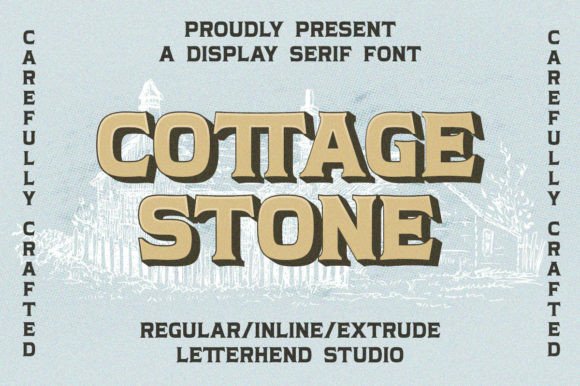
Cottage Stone Font: Elevate Your Design with a Timeless Classic
In the world of typography, few fonts manage to capture the essence of classic elegance and vintage charm as effectively as Cottage Stone. This bold all-caps serif font is a masterful blend of traditional and modern elements, making it an ideal choice for designers looking to add a touch of sophistication to their work. Whether you’re creating invitations, labels, logos, magazines, books, greeting cards, packaging, or advertising materials, Cottage Stone is the perfect companion to help your designs stand out.
Key Features of Cottage Stone Font
- Bold and Assertive: Cottage Stone’s bold nature ensures that your text grabs attention without compromising on elegance.
- All-Caps Design: The all-caps design of Cottage Stone lends a sense of grandeur and formality, making it suitable for a variety of high-end applications.
- Serif Details: The serif details add a classic touch, evoking a sense of tradition and reliability.
- Vintage Aesthetic: The font’s vintage aesthetic makes it perfect for projects that require a nostalgic feel, such as wedding invitations, classic logos, and traditional packaging.
- Versatility: Cottage Stone’s versatility means it can be used across a wide range of design projects, from fashion and beauty branding to book titles and advertising headlines.
10 Creative Ways to Use Cottage Stone Font
- Wedding Invitations: The elegant and bold nature of Cottage Stone makes it a perfect fit for wedding invitations, setting the tone for a sophisticated and memorable event.
- Logos and Branding: For businesses aiming to project a classic and reliable image, Cottage Stone can be used to create timeless logos and branding materials.
- Magazine and Book Titles: Add a touch of vintage charm to your magazine and book titles with Cottage Stone, making them stand out on digital and physical shelves.
- Greeting Cards: Whether it’s for a birthday, anniversary, or holiday, Cottage Stone can help create greeting cards that are both heartfelt and stylish.
- Packaging Design: For products that want to convey a sense of tradition and quality, Cottage Stone can be used effectively on packaging.
- Fashion and Beauty Branding: Cottage Stone’s classic yet bold aesthetic makes it suitable for fashion and beauty brands looking to convey elegance and sophistication.
- Advertising Headlines: Use Cottage Stone to create compelling and stylish headlines for your advertising campaigns, grabbing the attention of your audience.
- Stationery: Elevate your stationery designs with Cottage Stone, making letters, notes, and memos feel more special.
- Novel Titles: For authors and publishers looking to give their novels a classic and distinctive look, Cottage Stone is an excellent choice.
- Makeup and Cosmetics Branding: The vintage charm of Cottage Stone can add a unique and appealing element to makeup and cosmetics branding.
Tips for Getting the Most Out of Cottage Stone Font
To truly leverage the potential of Cottage Stone, consider the following tips:
- Pair with Simpler Fonts: When using Cottage Stone for headings, pair it with simpler, sans-serif fonts for body text to create a balanced look.
- Experiment with Colors: While Cottage Stone looks great in black and dark colors, don’t be afraid to experiment with other colors to match your brand’s palette or design theme.
- Adjust Letter Spacing: For a more vintage feel, slightly increase the letter spacing to give your text a classic, airy look.
- Utilize Size Variations: Take advantage of Cottage Stone’s bold nature by using size variations to create visual hierarchy in your designs.
Cottage Stone font is a versatile and stylish addition to any designer’s toolkit. Its bold, all-caps serif design offers a perfect blend of classic elegance and vintage charm, making it suitable for a wide range of applications. Whether you’re working on wedding invitations, logos, magazines, books, or advertising materials, Cottage Stone can help elevate your designs to a new level of sophistication and appeal. By incorporating Cottage Stone into your projects, you’re not just choosing a font; you’re embracing a timeless aesthetic that will make your work stand out.